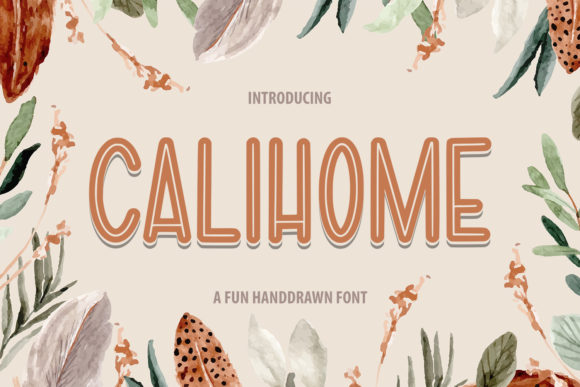
Dive into the world of Calihome, a mesmerizing font family crafted with precision and elegance. Its sans serif structure radiates a clean, slender, and ultra-smooth aura, ready to transform your designs into captivating masterpieces. Experience the allure of Calihome, the font that breathes life into your creations.
Unleash your creativity with Calihome, the ultimate font collection designed to elevate your T-shirt designs. Its carefully crafted letters carry a timeless appeal that blends seamlessly with any design aesthetic. Callihome shines as the perfect companion for your T-shirt designs, captivating attention, and leaving a lasting impression on your audience.
Step into a world of boundless possibilities with Calihome. Let your imagination soar as you create stunning designs that speak volumes. From casual wear to streetwear, Calihome adapts effortlessly, enhancing your designs with a touch of sophistication and intrigue. Its versatility knows no bounds, allowing you to craft designs that resonate with your unique style.
Calihome is more than just a font. It's an experience that ignites your passion for design. Its clean lines and smooth curves entice the eyes, evoking a sense of allure that draws your audience in. Let Calihome be your creative compass, guiding you toward designs that leave an unforgettable mark.
Don't settle for ordinary. Choose Calihome, the font that elevates your T-shirt designs to new heights. Its simplicity and elegance will transform your creations into wearable works of art. Embrace the power of Calihome and let your designs shine brighter than ever before.